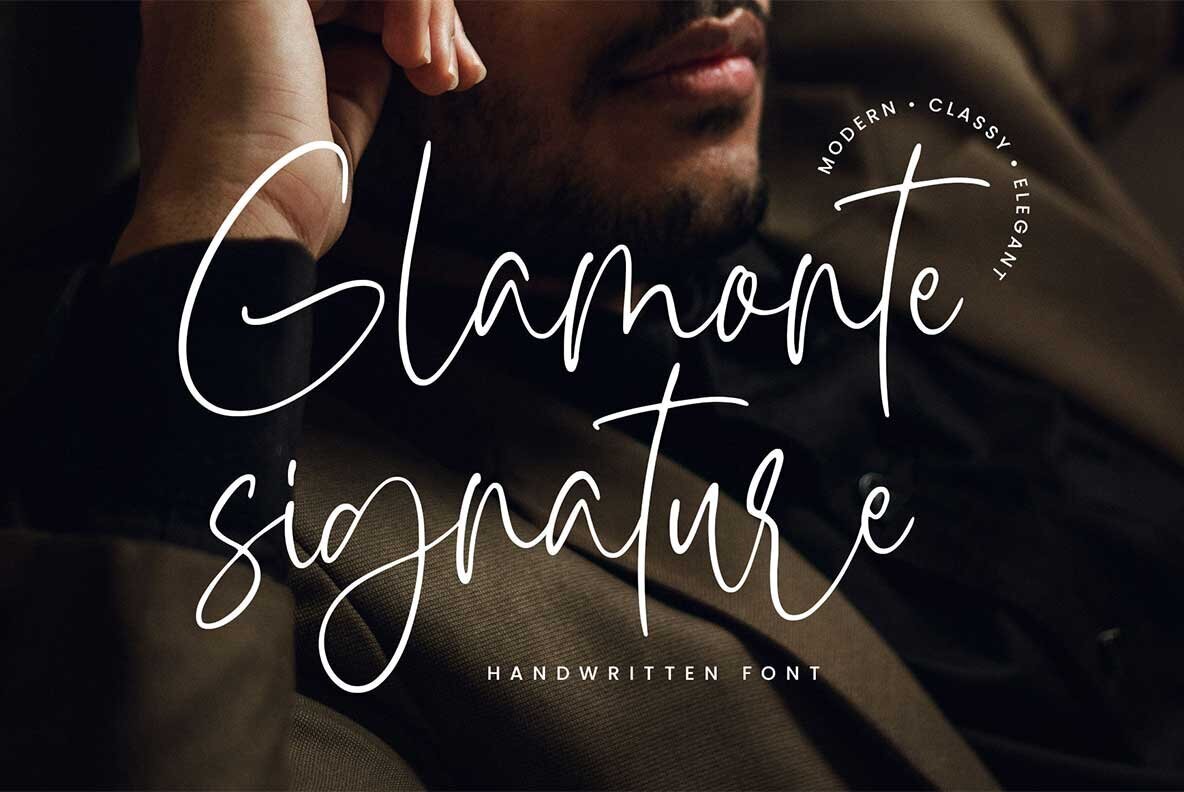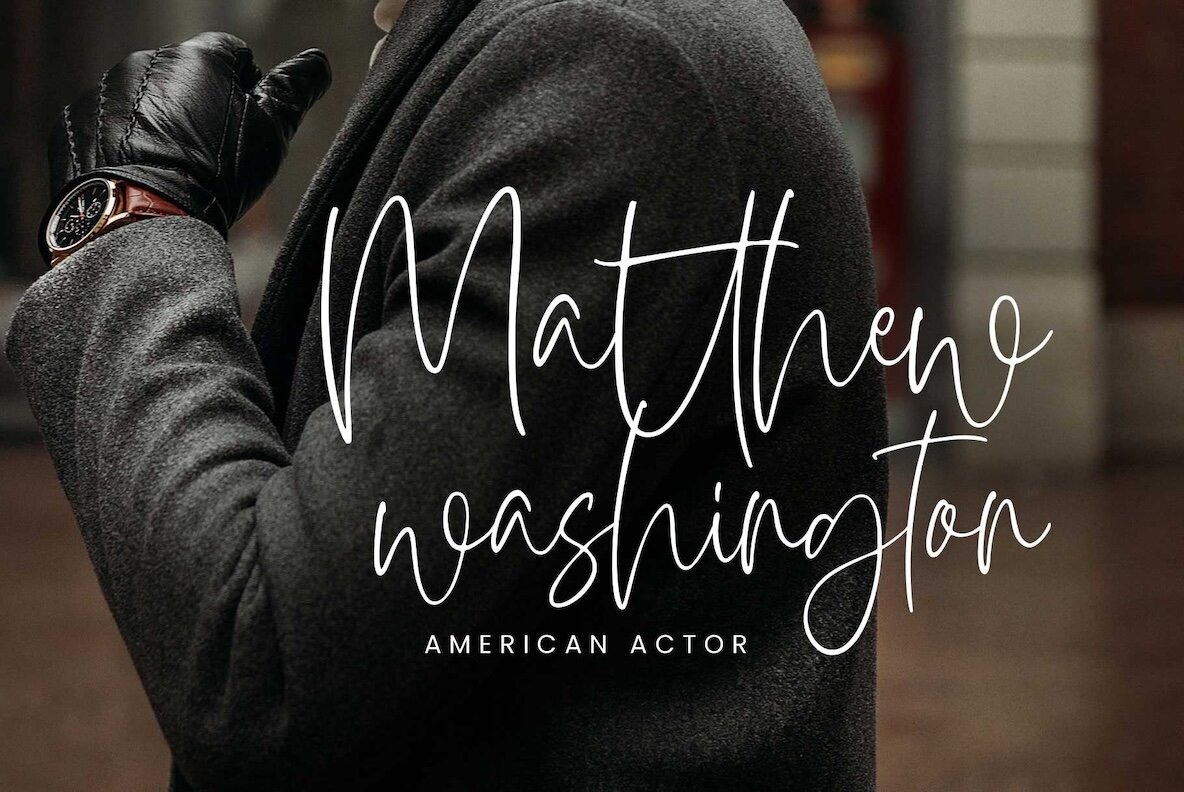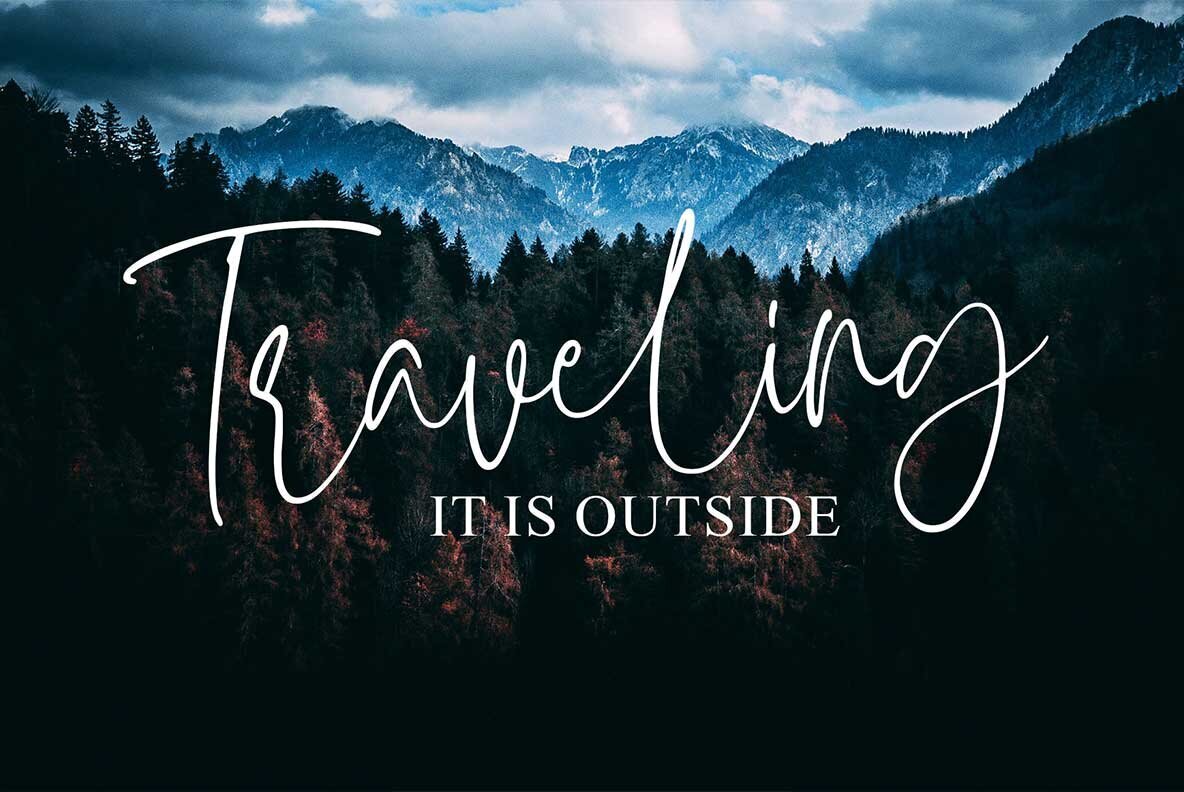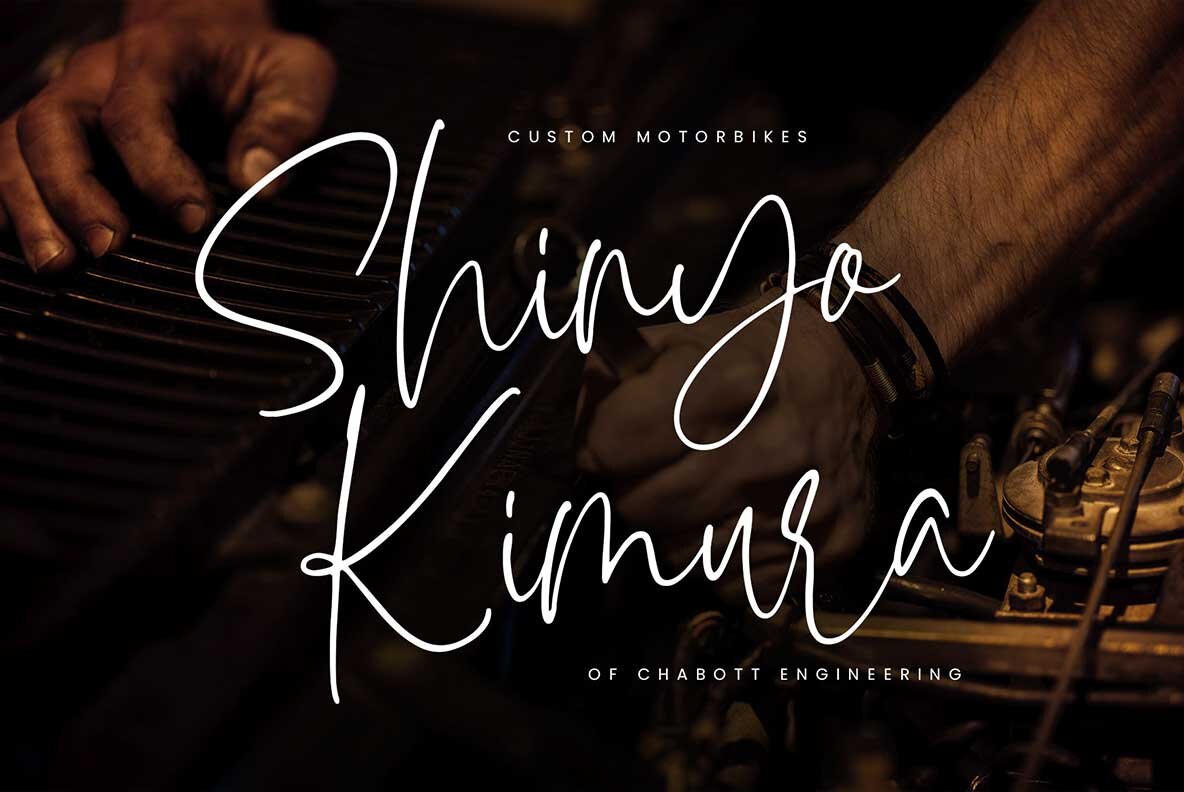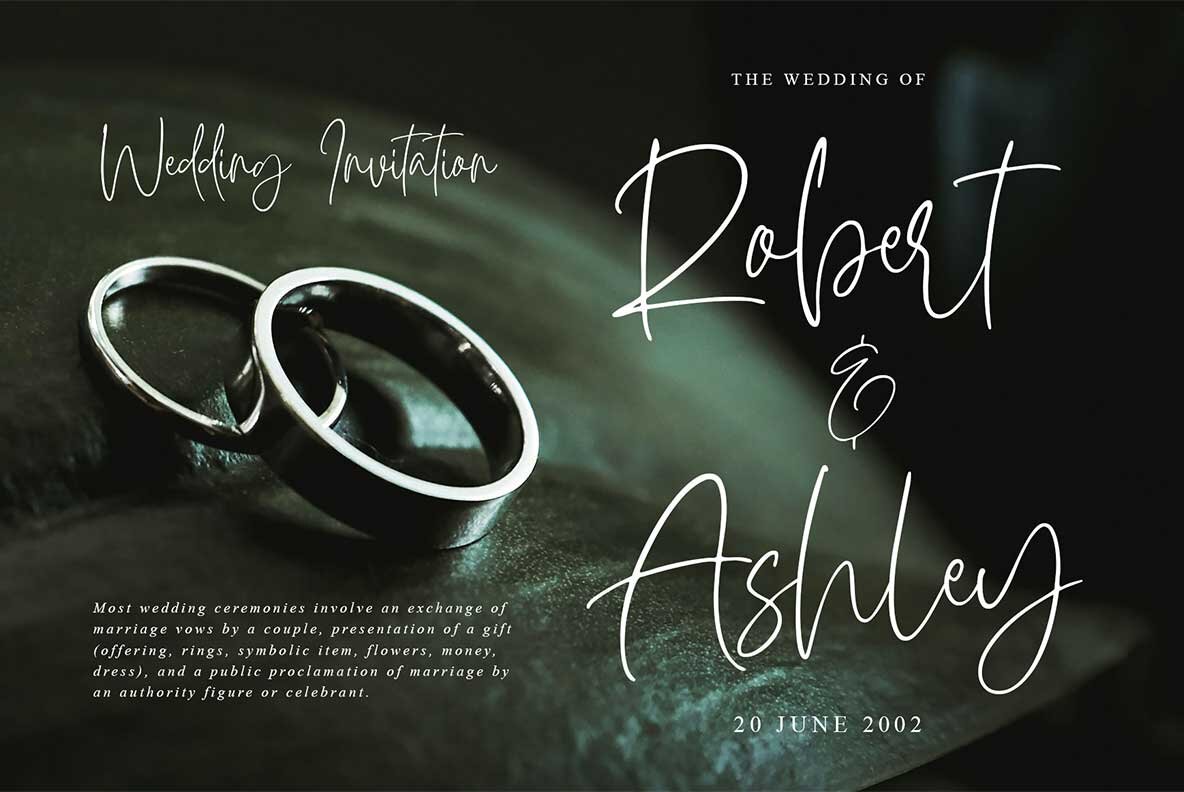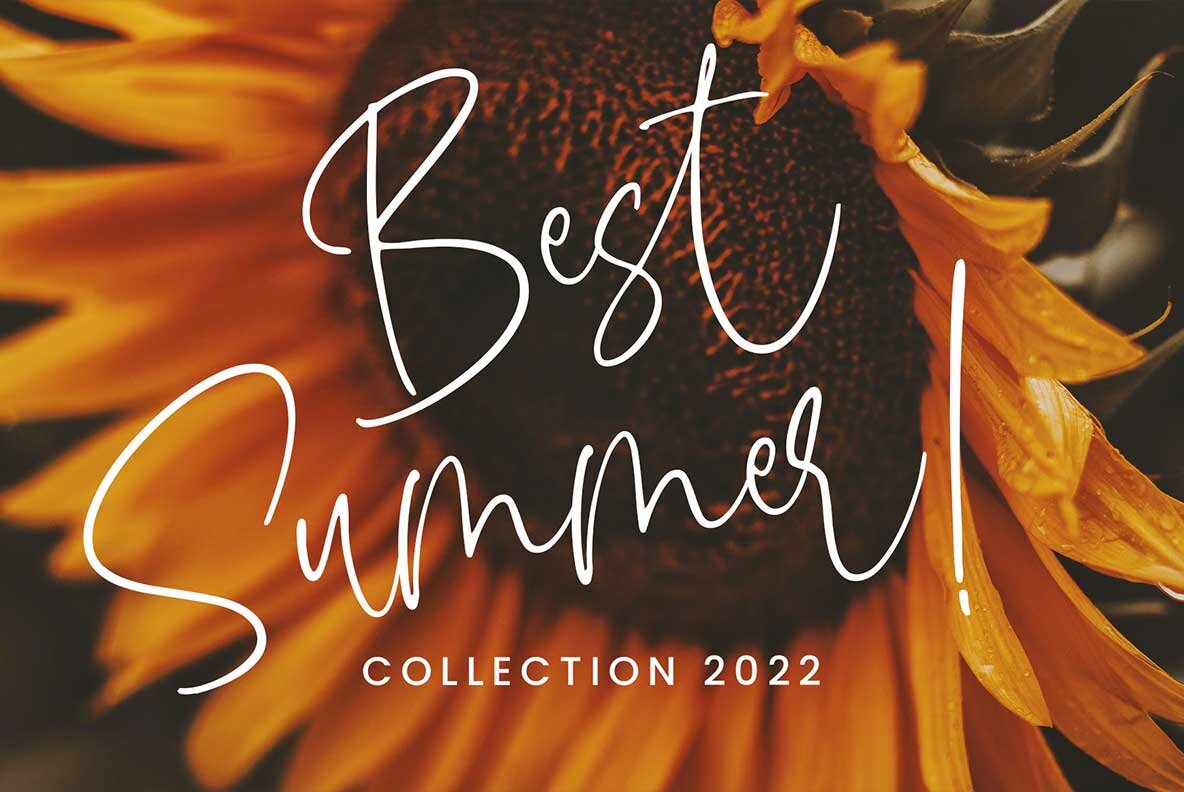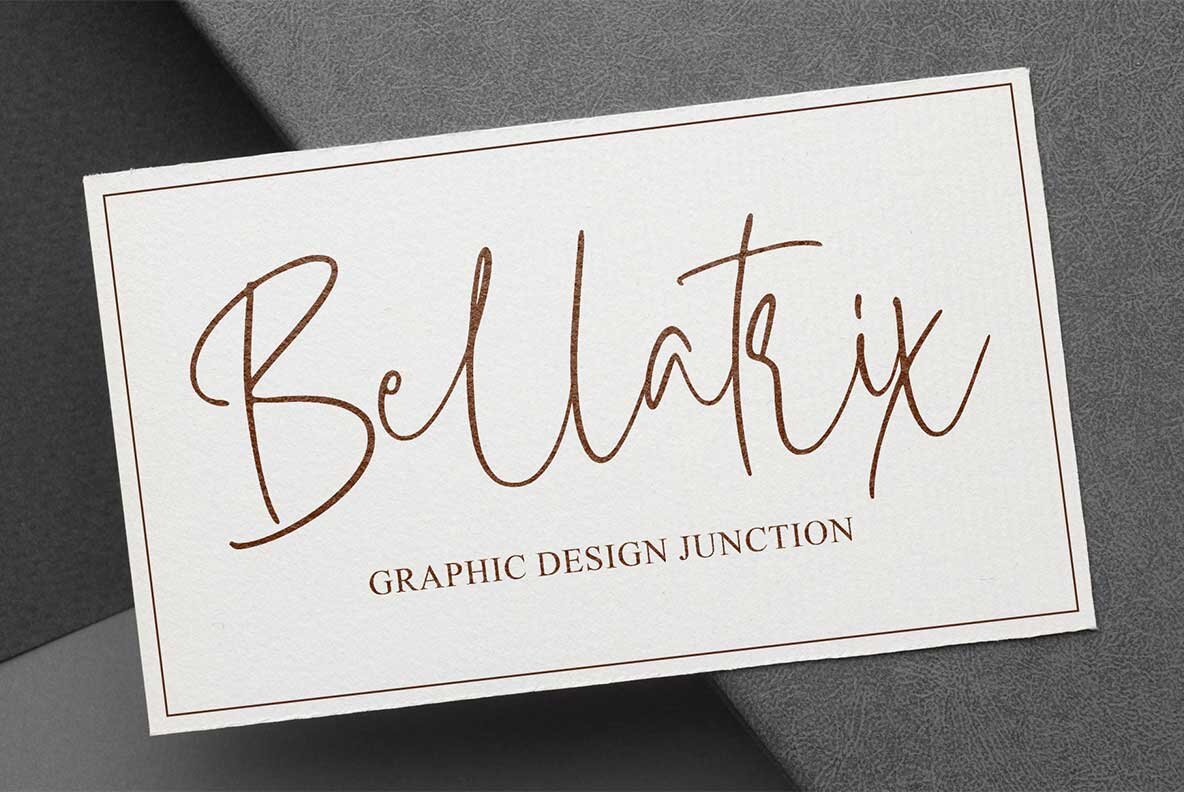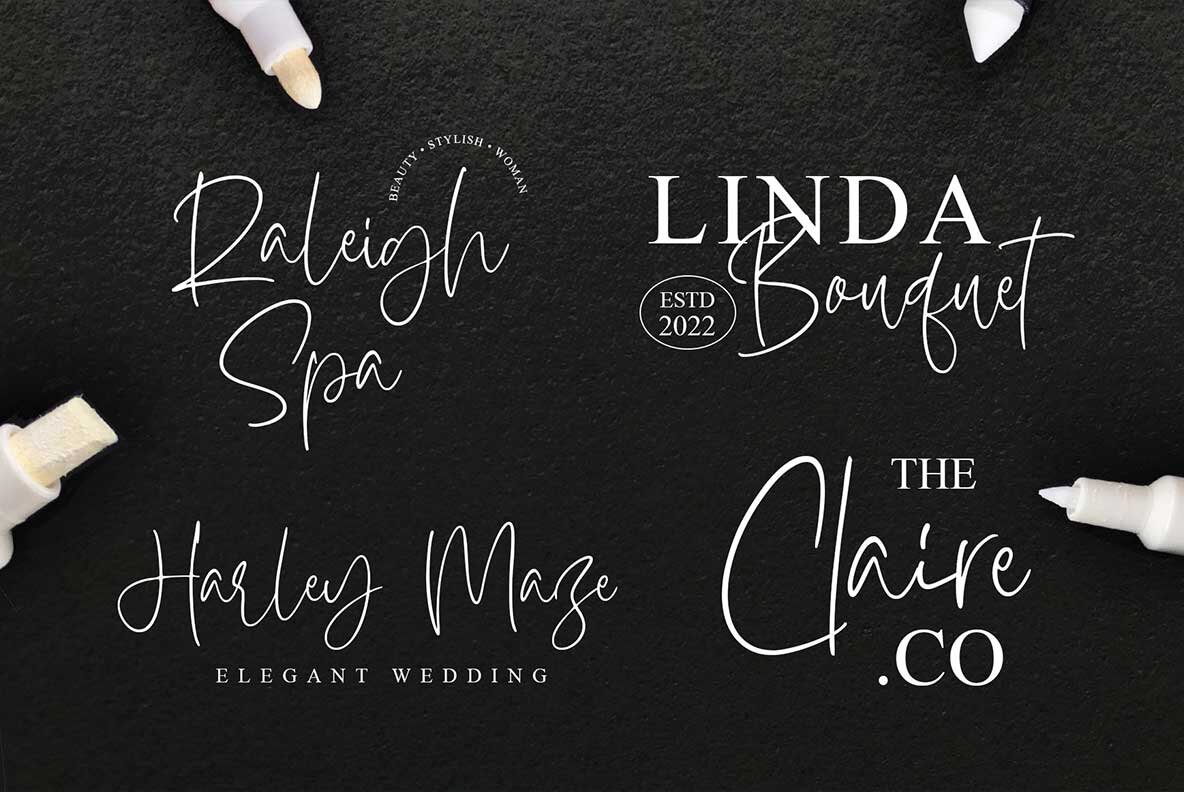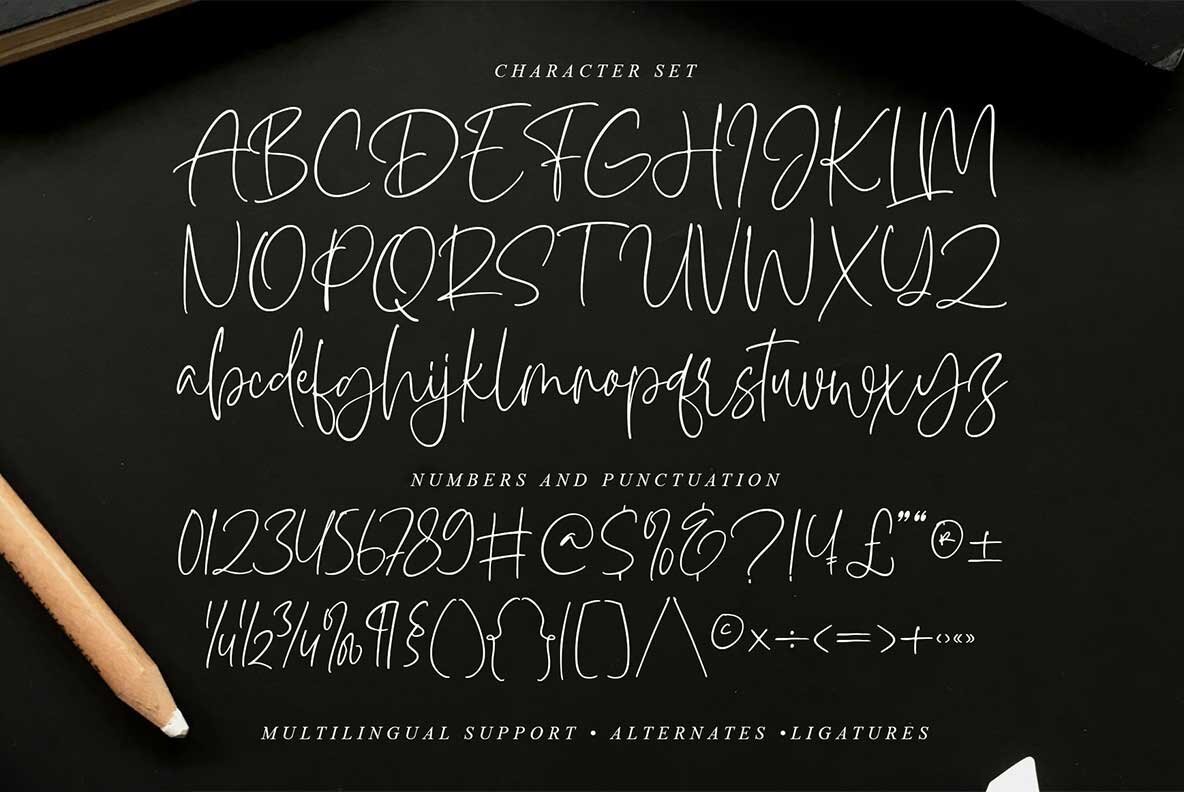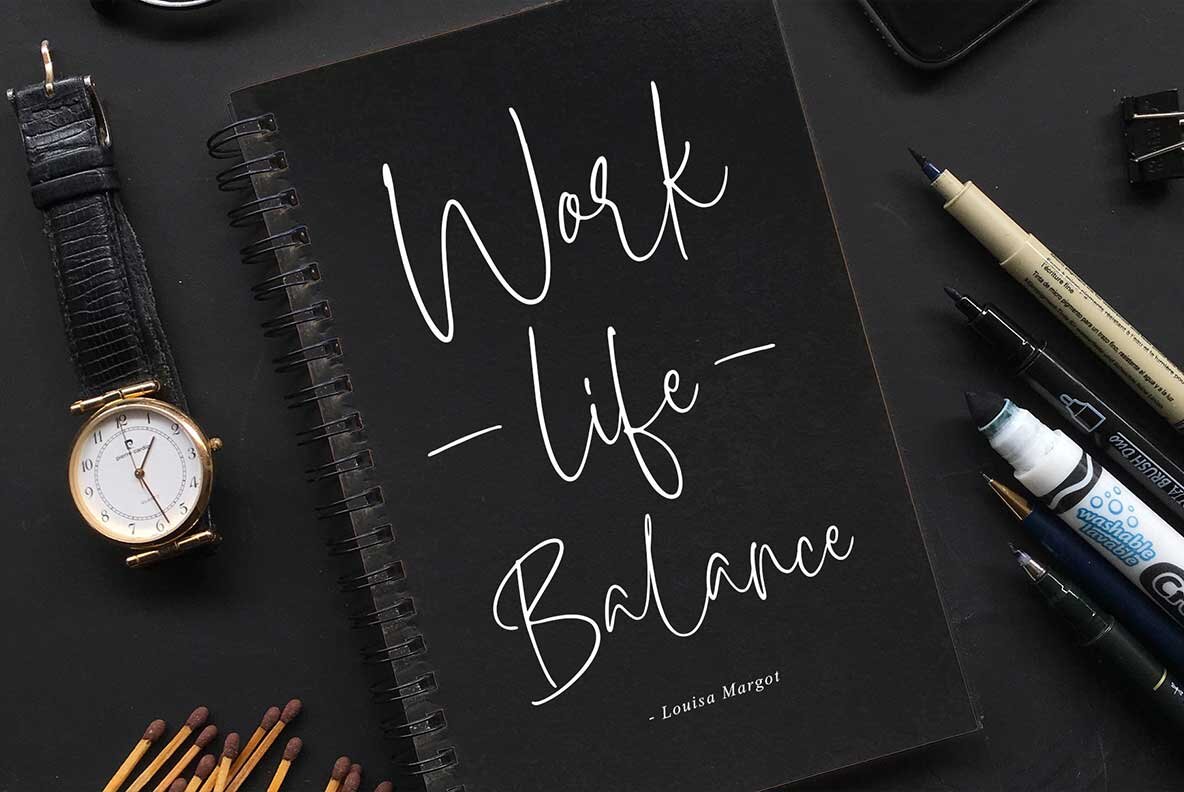
Glamonte Signature Font
Glamonte Signature Regular
Discover the elegance of Glamonte Signature, a font that harmonizes signature and handwriting styles for a unique, sophisticated appearance. Imbued with natural and feminine vibes, Glamonte Signature is perfect for any media where elegance and minimalism are desired. From weddings to invitations, cards, and brief quotes, this font enhances your design with its delicate touch.Glamonte Signature